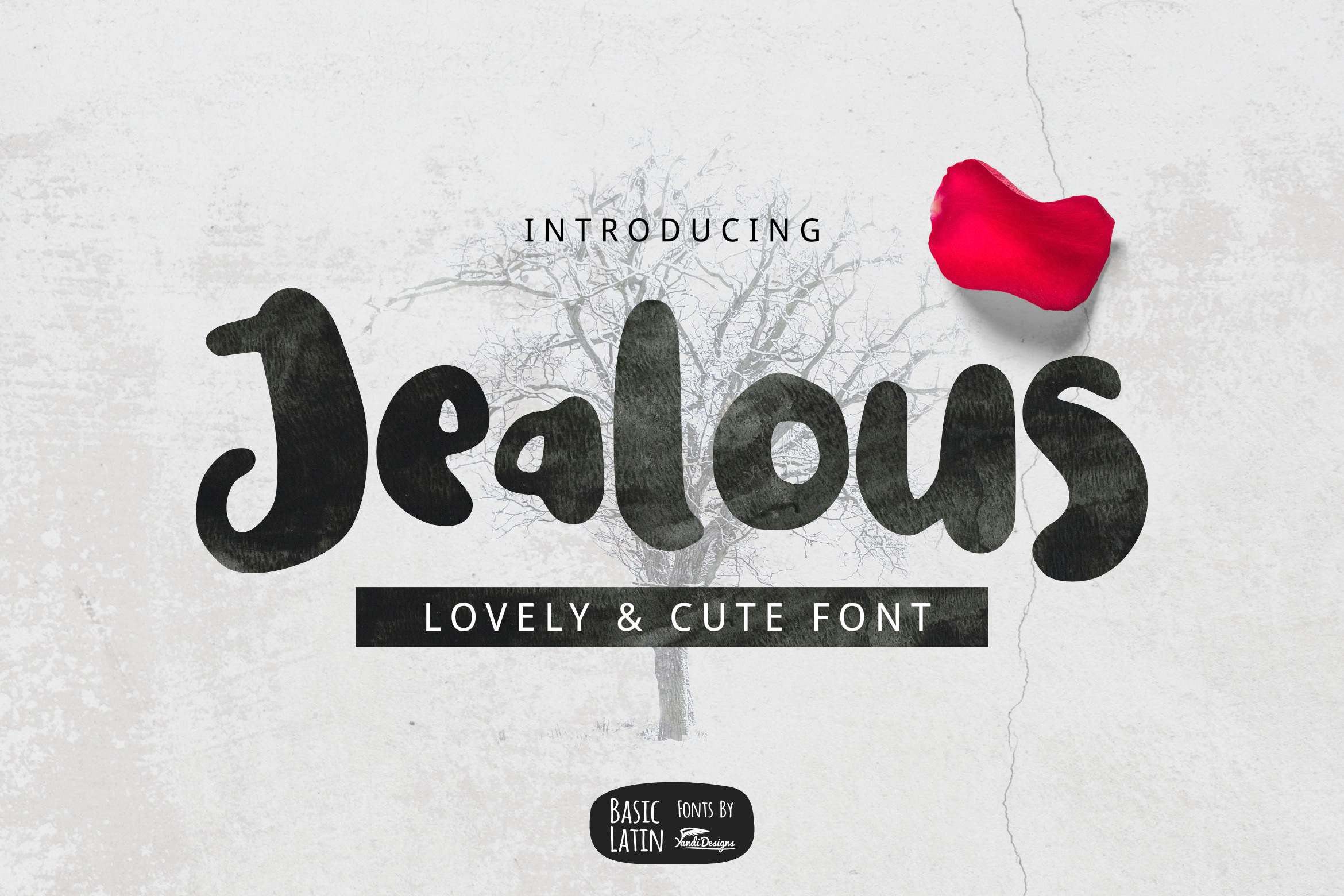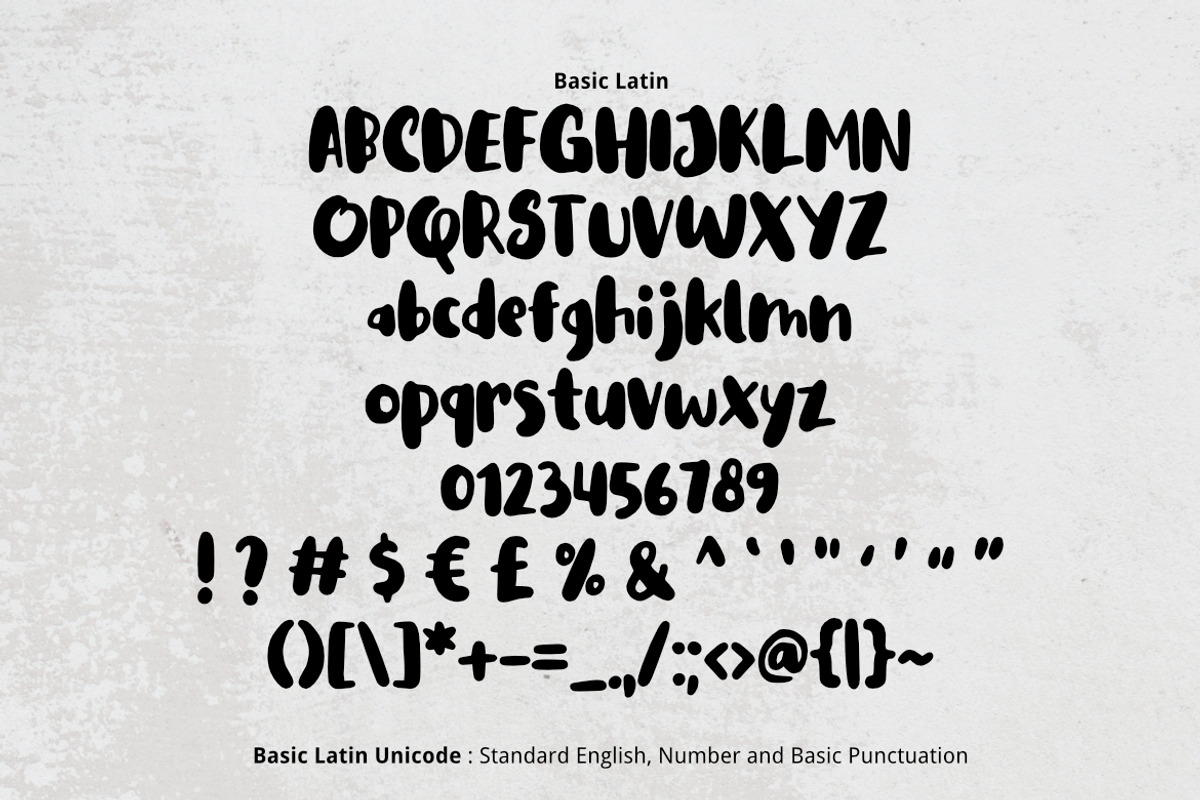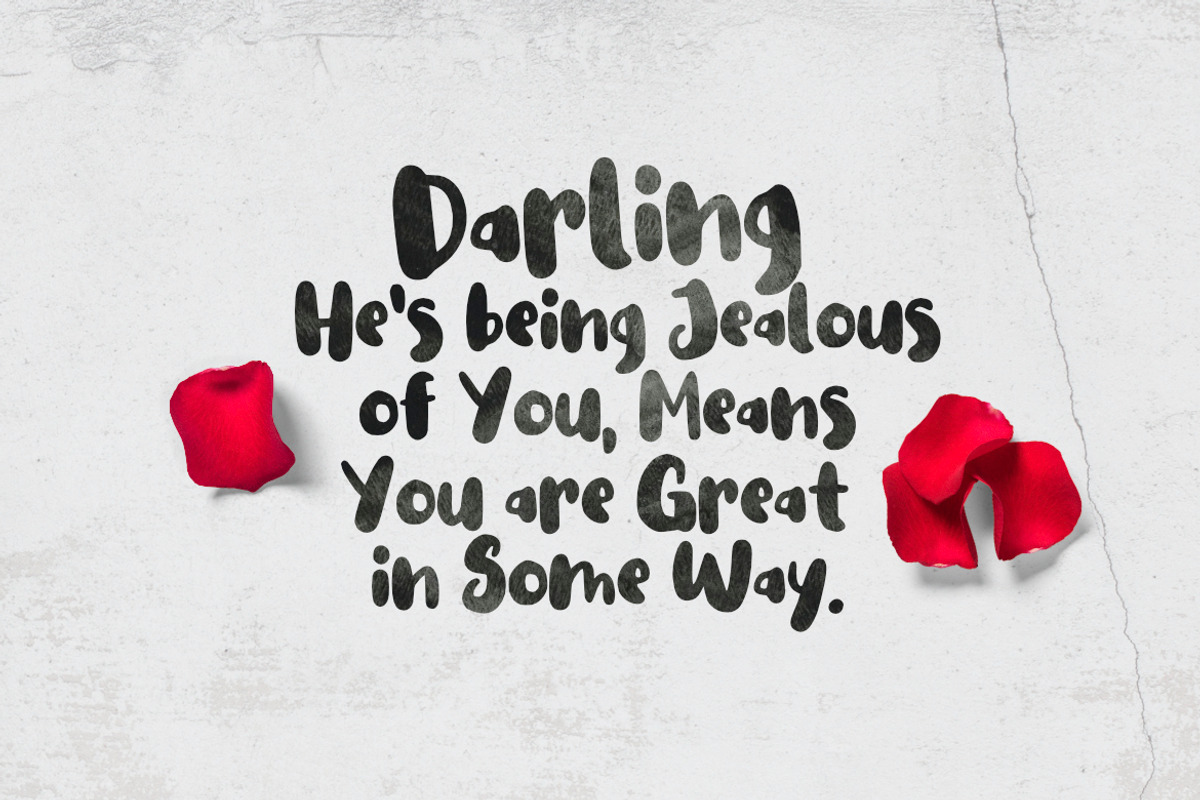
Jealous Cute Font
Jealous Font
Jealous font is lovely , cute, simple, playful, multipurpose handwritten font , suitable for many project children book, quotes, logo , heading , title etc.
Basic Latin (Standard English character , number, symbol)